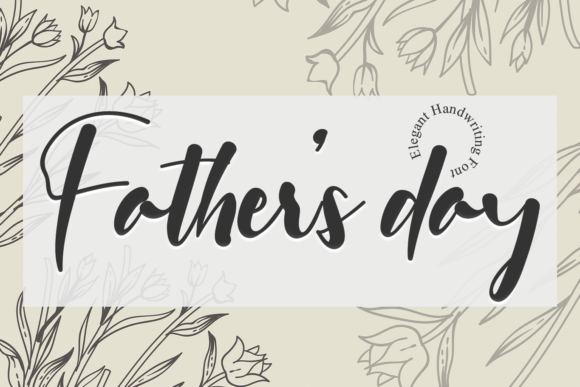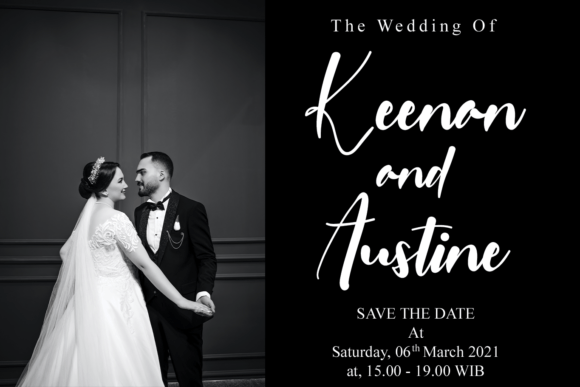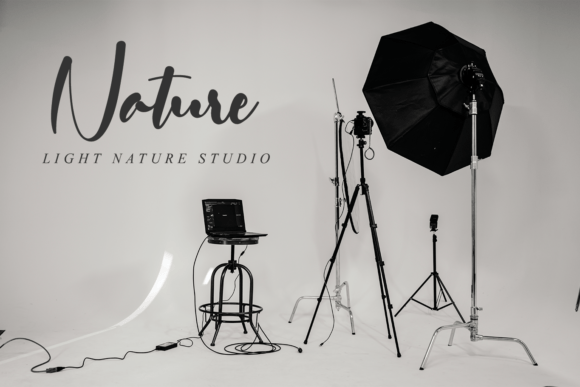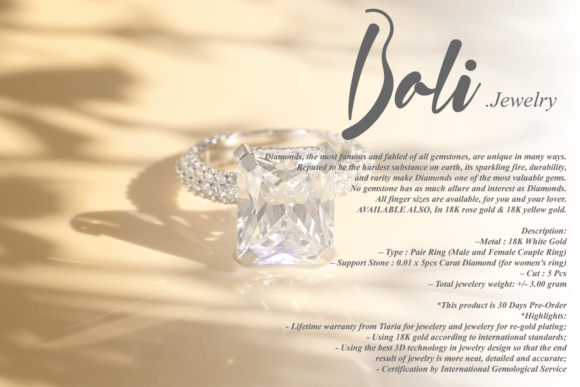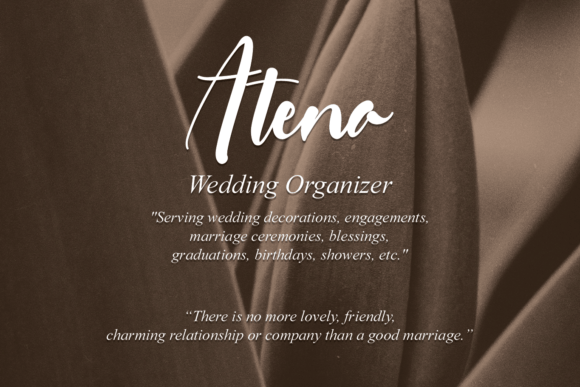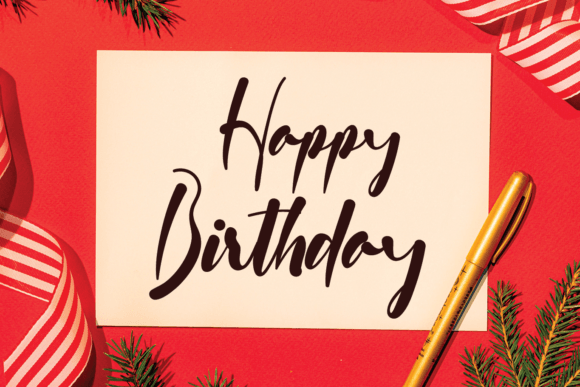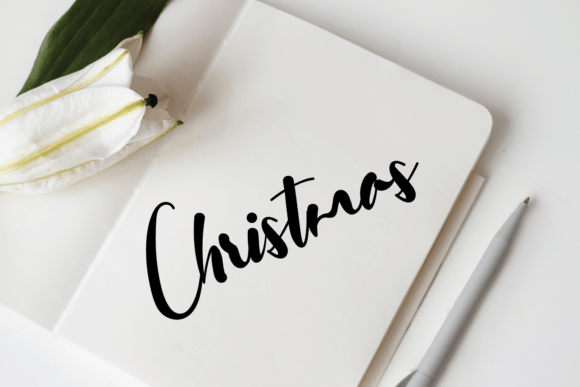
Falling in Love with the Perfect Font for Dads
Have you ever stumbled upon a font that made you stop, take a deep breath, and think, ‘This is it’? This is the moment when creativity strikes, and the right tool makes all the difference. For designers and typography enthusiasts, discovering the perfect font can be a game-changer. And for those special dads out there, we have a font that’s sure to make their day – literally.
Meet the Fathers Day Font, a masterfully designed handwritten font that combines classy calligraphic influences with a fresh, contemporary feel. This beautiful font is perfect for adding a personal touch to your projects, from heartfelt messages to creative designs. Whether you’re a seasoned designer or a DIY enthusiast, the Fathers Day Font is sure to elevate your work and bring a smile to the faces of the dads in your life.
- Unique Characteristics: Includes special glyphs and symbols for Father’s Day-themed designs, such as “DAD,” “PAPA,” and “FATHER,” to add a personal touch.
Fathers Day Font Review
Overall, I think the “Fathers Day Font” is a great addition to any design project. ✨ It has a fun, playful feel that’s perfect for celebrating dads and fatherhood. The font is well-designed and easy to read, even at smaller sizes.
- The font is highly customizable, allowing you to adjust the color, size, and style to fit your design needs.
- The font includes a range of fun and creative characters, including stars, hearts, and more.
- The font is highly legible, making it perfect for body text or headlines.
- The font may not be suitable for formal or professional designs, as it’s a bit too playful.
- The font may not be as versatile as some other fonts, as it’s specifically designed for celebrating dads.
- Some users may find the font a bit too kitschy or over-the-top.
Overall, I think the “Fathers Day Font” is a great choice for anyone looking to add some fun and personality to their designs. Just be aware of its limitations and use it accordingly.
The Fathers Day Font is ideal for creating custom:
1. Father’s Day cards and invitations.
2. Personalized gifts and mementos.
3. Social media graphics and posts.
4. Event banners and posters.